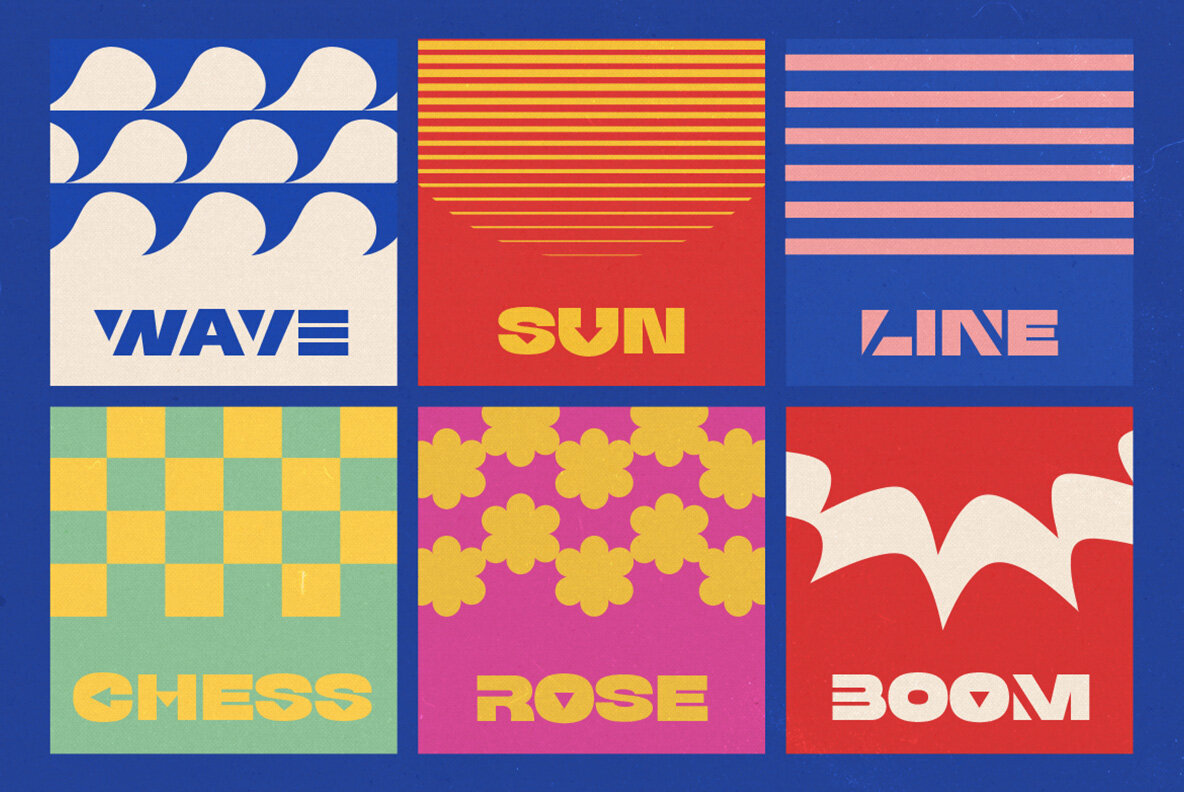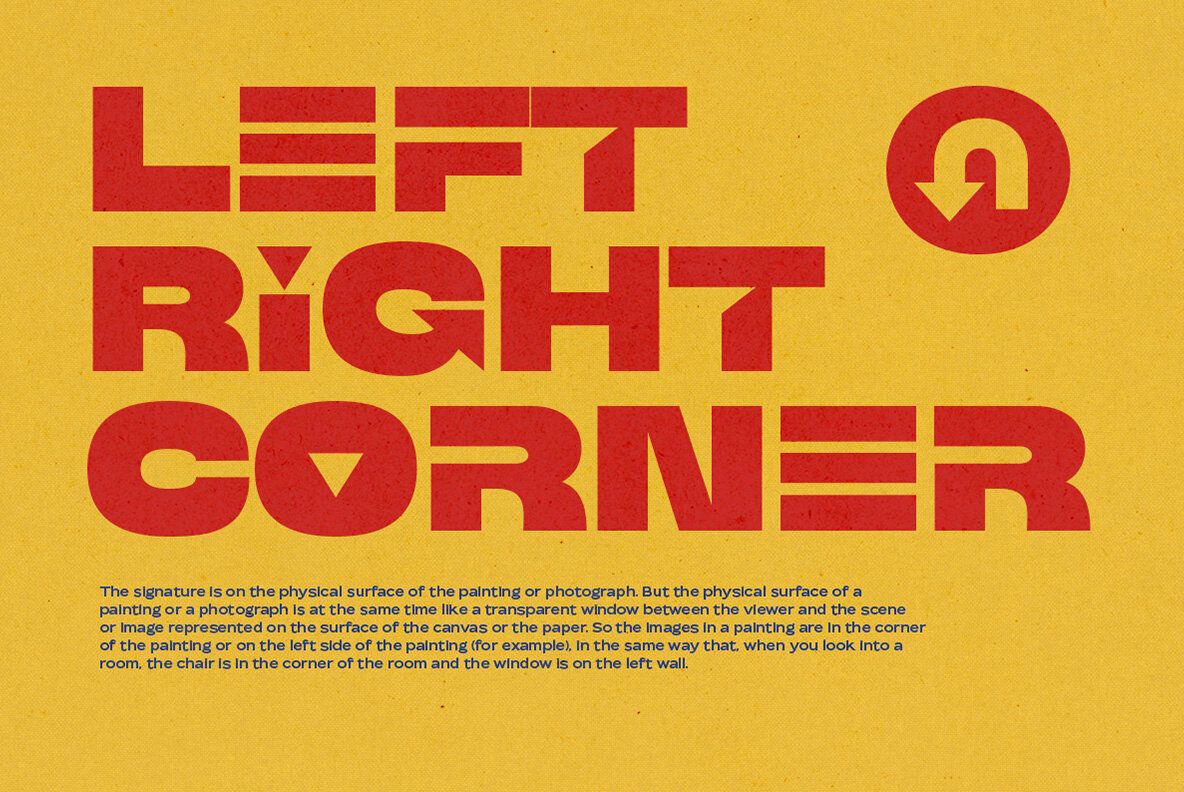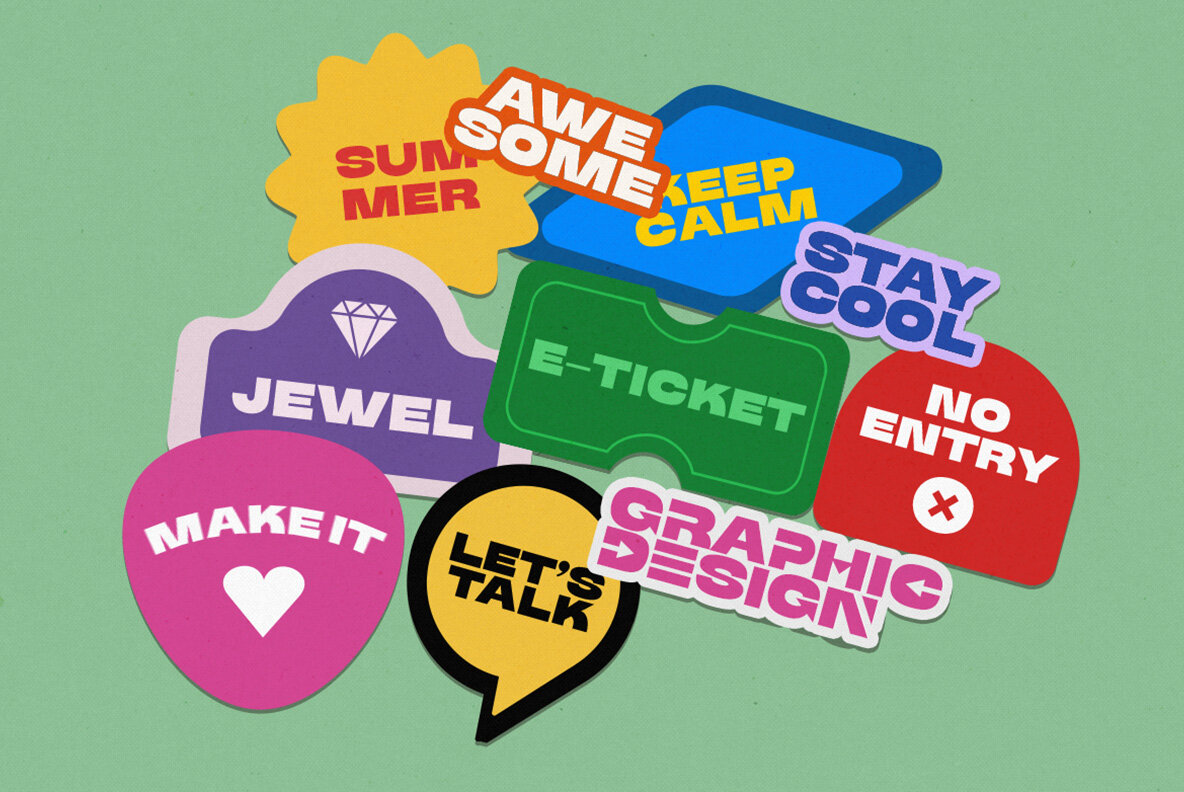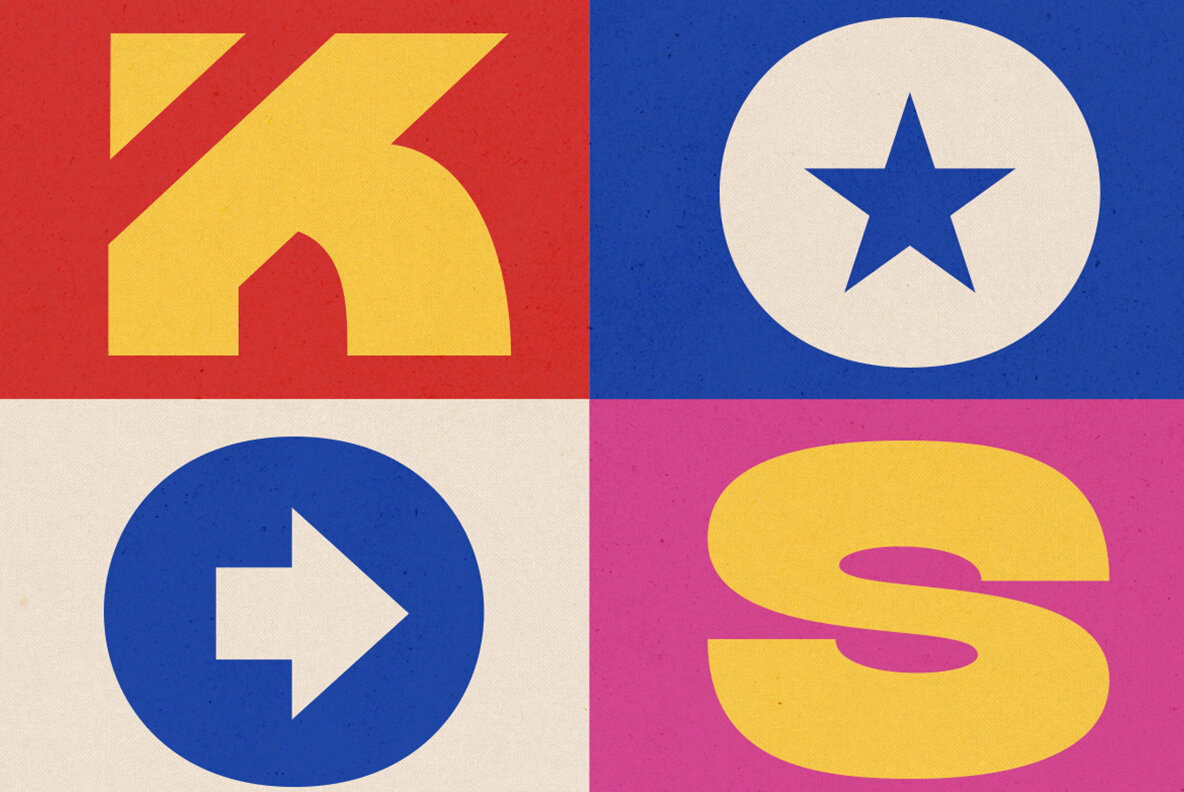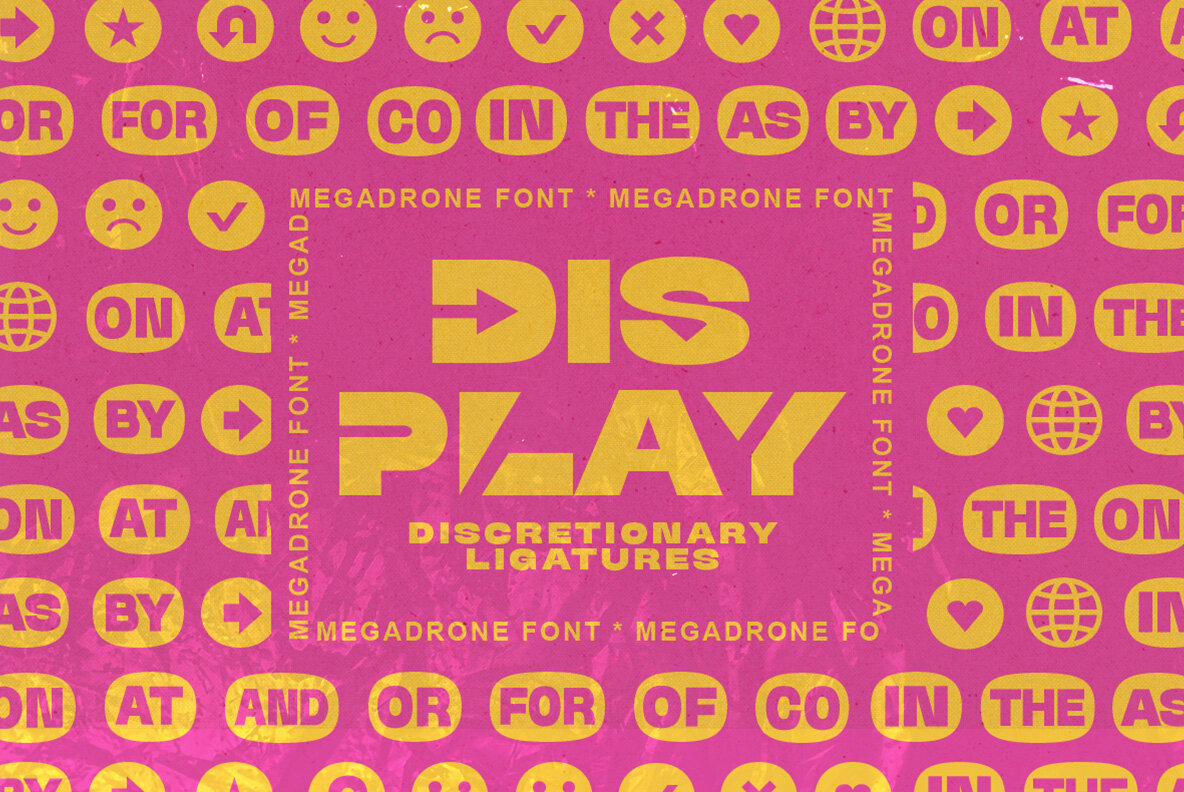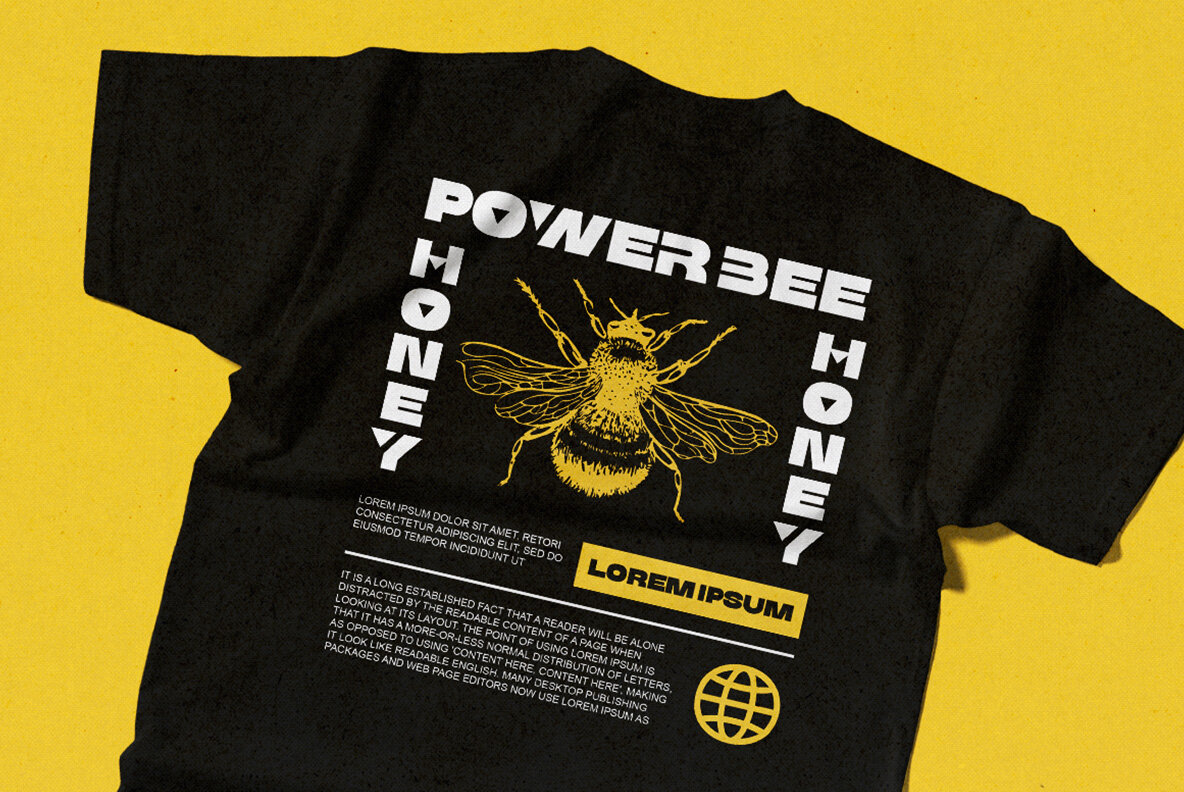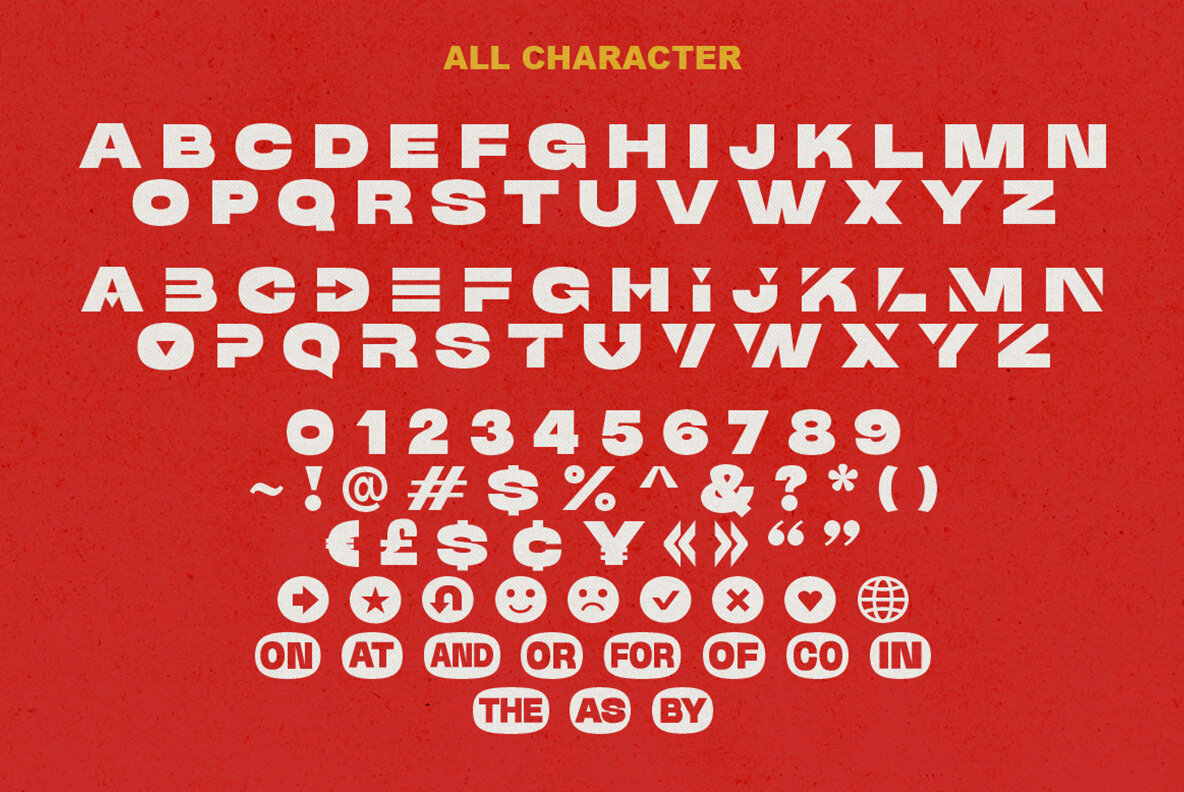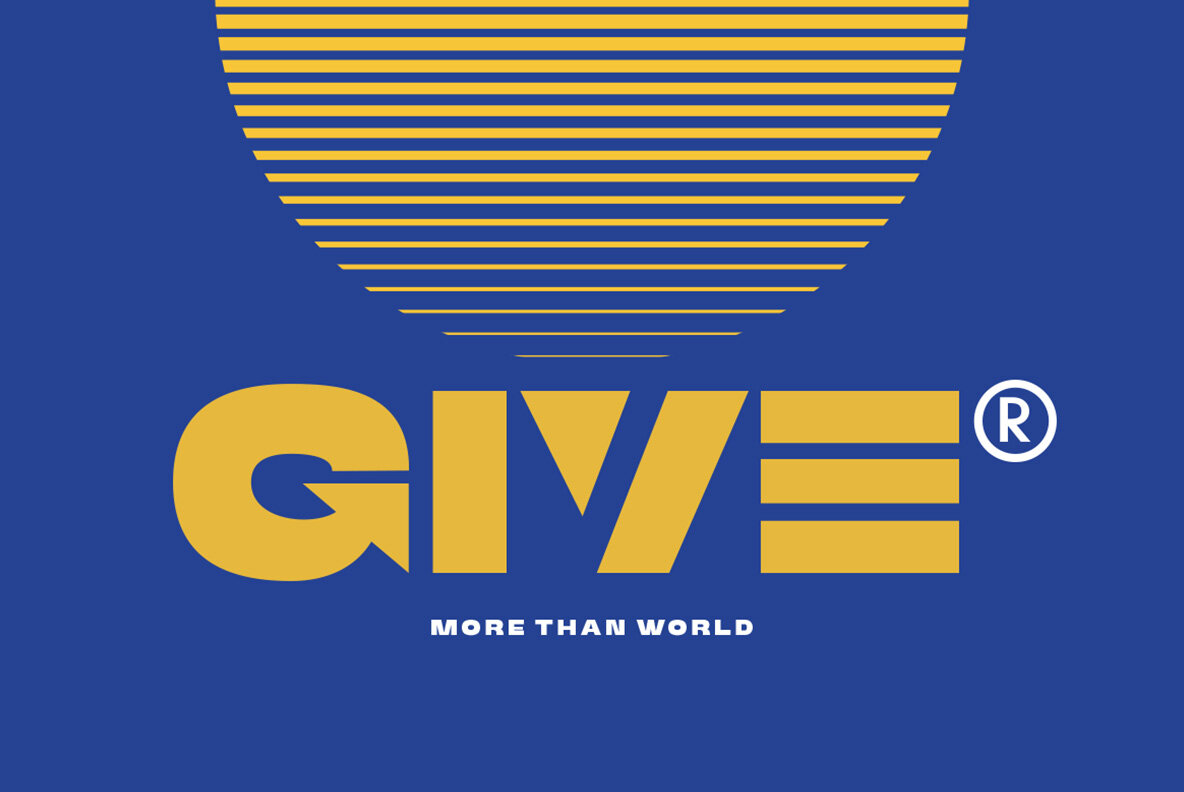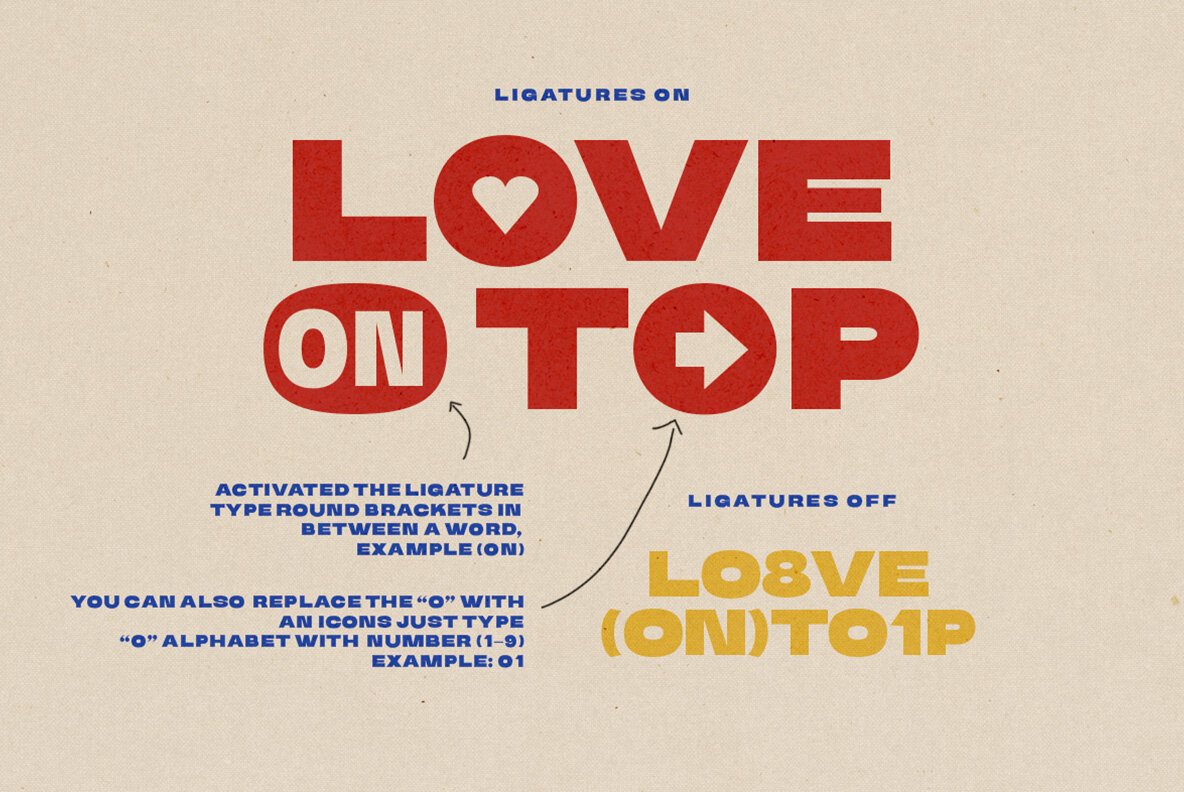
Mega Drone Font
Mega Drone Regular
The Mega Drone font is a display typeface that can be used for projects requiring strong and bold vibes.
It includes icons, catchwords accessed through ligature marks (just mix the uppercase letters with lowercase), as well as multiple languages!